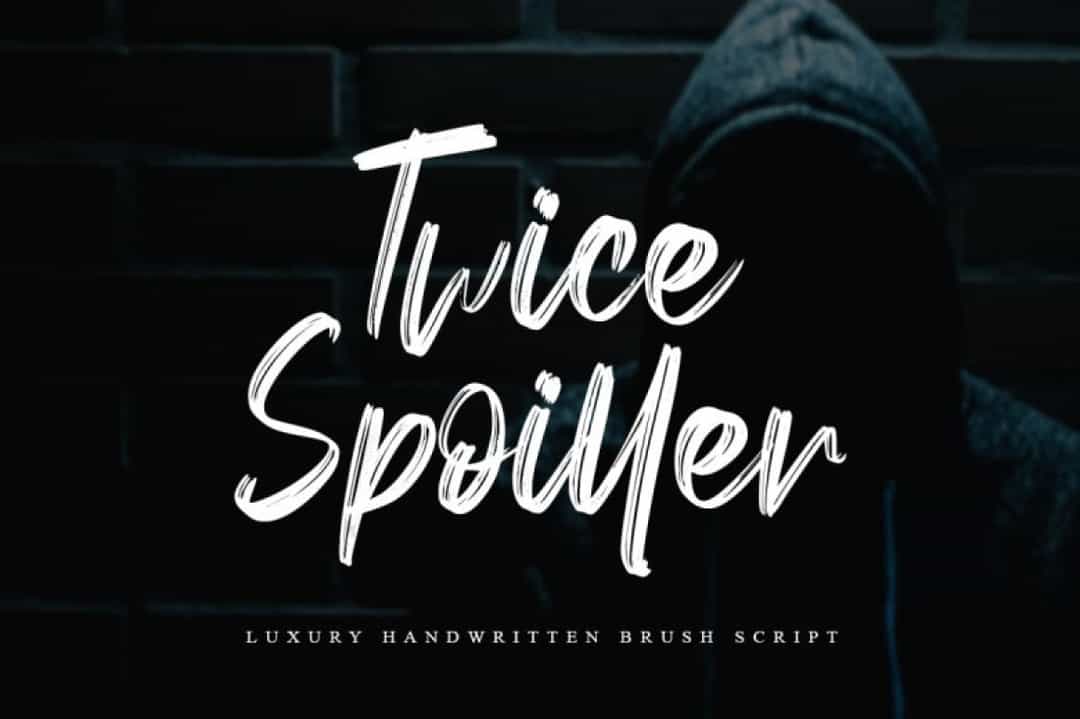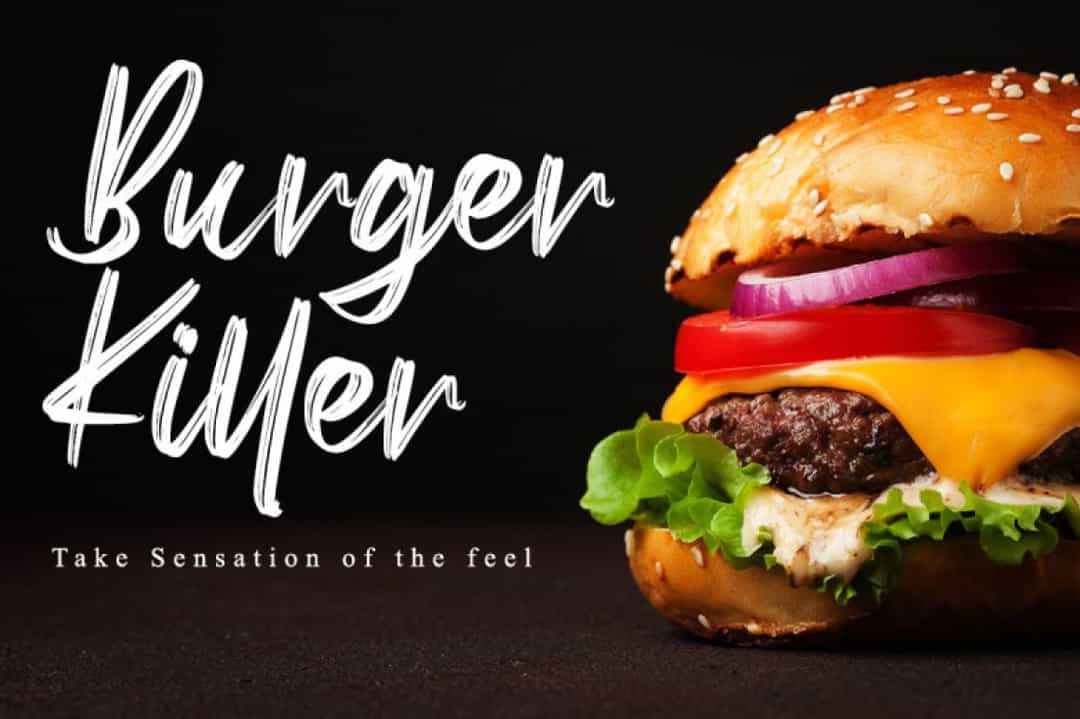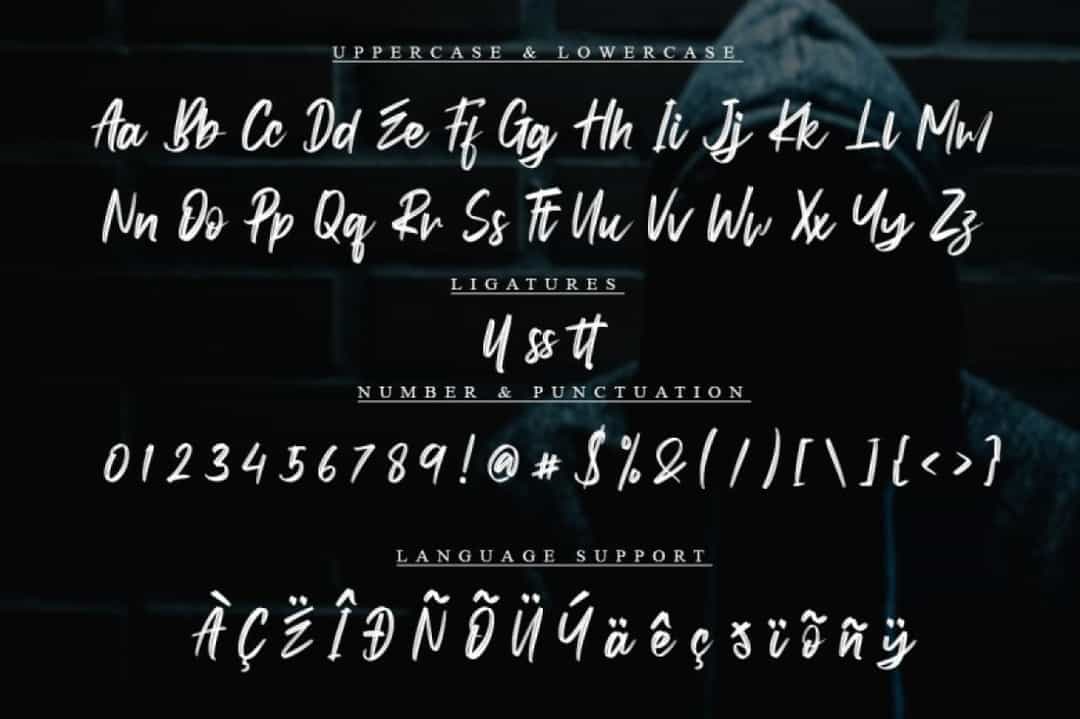
Twice Spoiller Font
Hello and thank you for considering my latest product “Twice Spoiller”, an exciting hand-crafted brush script font designed specifically to be used on greeting cards as well as promotional materials like business cards posters quotes etc! I hope that I am pleased to present this amazing handiwork to you.